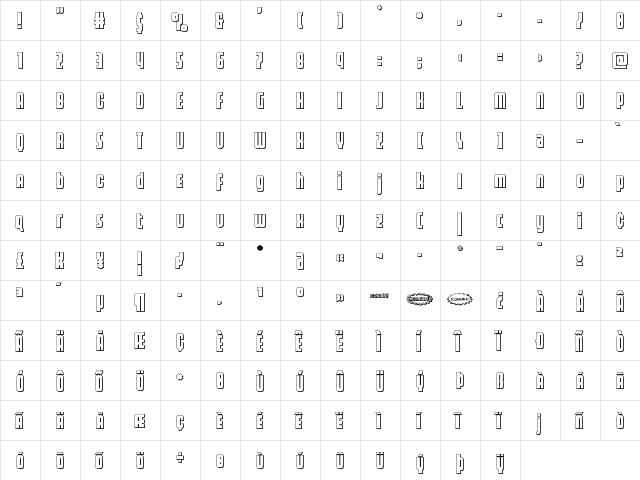
Homelander 3D Regular
Design Context for Homelander 3D Typeface
Homelander 3D is a composed and adaptable typeface that performs quietly and consistently across a wide range of design contexts.